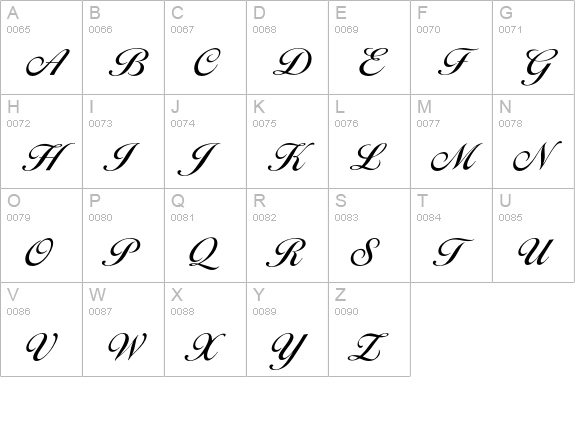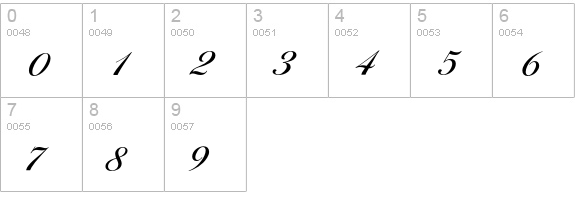
BallantinesScriptEF-Medium is a balanced, medium-weight variant in the BallantinesScriptEF typeface family \xE2\x80\x94 well suited to sub-headlines, navigation, and balanced editorial work.
BallantinesScriptEF-Medium font is a beautifully crafted typeface designed to bring elegance and sophistication to your projects. Its flowing, cursive style exudes class and charm, making it perfect for invitations, cards, and other designs that require a touch of refinement. One of the best things about BallantinesScriptEF-Medium font is that it is available for free download at FontsMarket.com. This means that you can easily access and use this stunning font in your projects without any cost. With its smooth curves and graceful letterforms, BallantinesScriptEF-Medium font is sure to elevate your designs and leave a lasting impression on your audience.